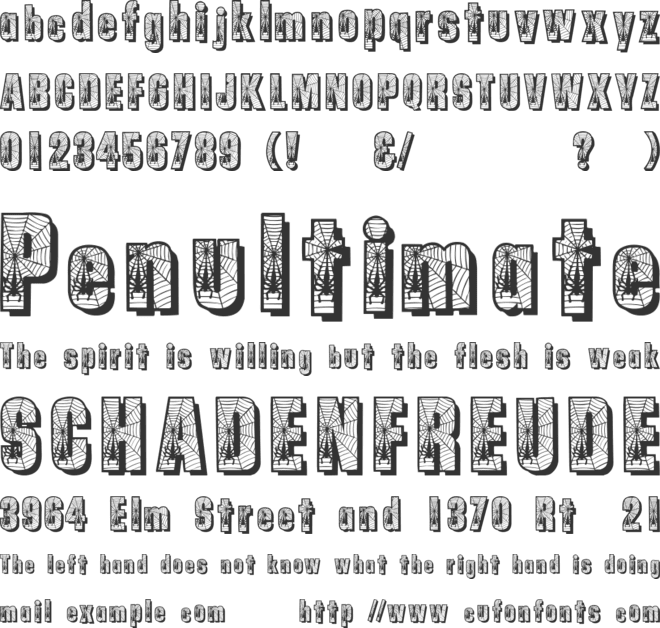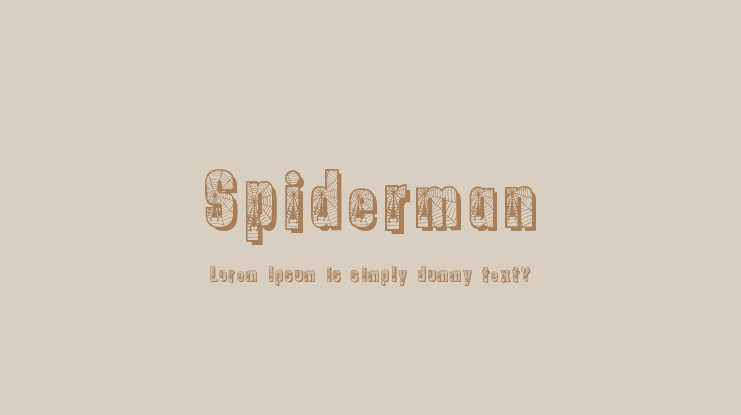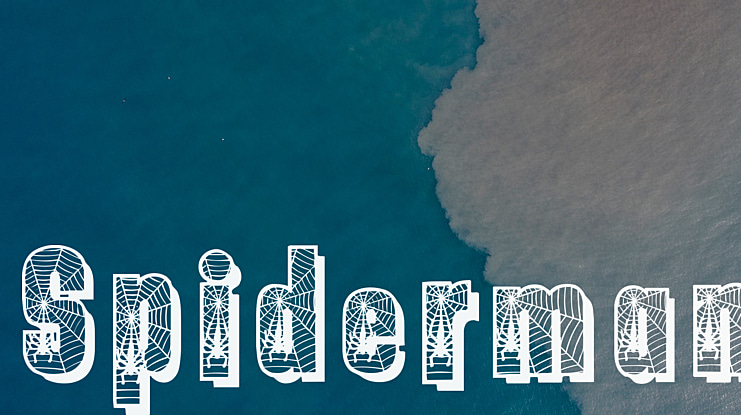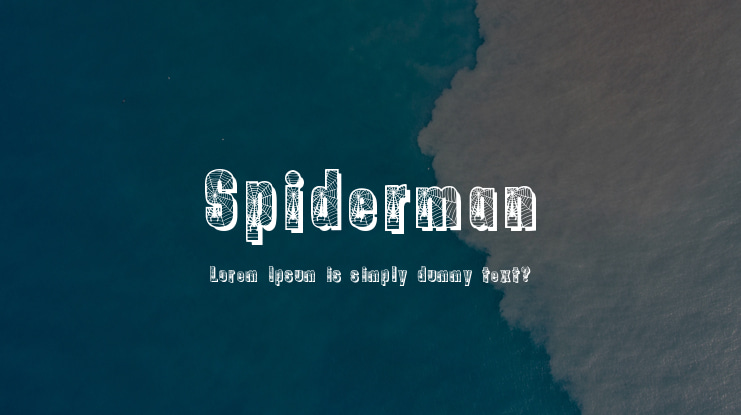
Spiderman Font
Spiderman was created by Web Dog
in 1998 for the Australian Army's
13th Brigade bi-annual exercise of
the same name.
Created for Spiderman '98 by Capt Greg Smith, Army PR. Freeware.